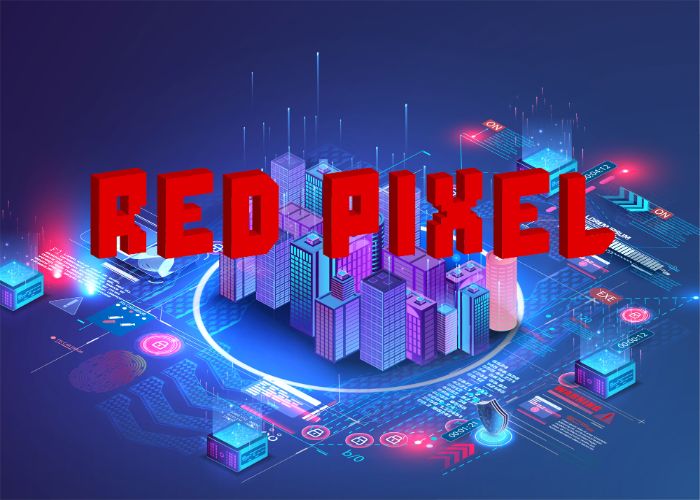
Red Pixel 3D Color Font — Freebie
Free gaming font — bold, blocky and futuristic. Red Pixel is a 3D SVG color pixel font with strong, sharp corners designed to emphasize the racer in you. Use it to create banners, posters, apparel, mugs and other high-impact designs.
Highlights
• 3D SVG color pixel font
• Blocky, futuristic look with sharp corners
• Ideal for gaming, racing and retro-inspired projects